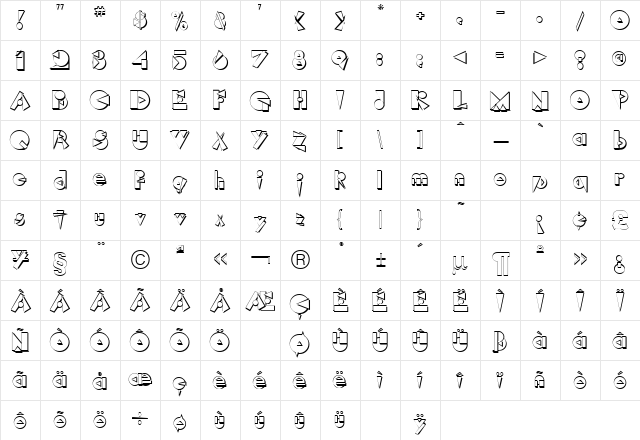
Rock Regular
Rock Family
Rock Regular
Design Context for Rock
Rock is a composed and adaptable typeface that performs quietly and consistently across a wide range of design contexts.